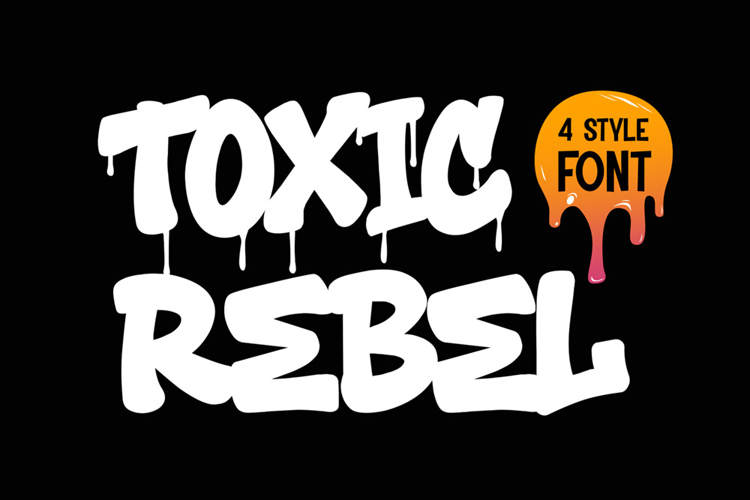
Toxic Rebel | Layered Drip Graffiti Font
Unleash chaos and creativity with Toxic Rebel – Layered Drip Graffiti Font. Designed with rebellious energy and dripping style, this typeface captures the raw essence of graffiti while adding a dark and spooky atmosphere. With its bold layered system, you can mix styles to create unique horror-inspired lettering that looks painted fresh on the wall.
Perfect for Halloween posters, haunted house flyers, music covers, gaming graphics, and bold headlines, Toxic Rebel delivers a striking look that instantly grabs attention. Its versatility allows designers to play with combinations of solid, outline, and drip versions, making every project feel alive and original.
Built in All Caps format for maximum impact, Toxic Rebel is crafted to dominate any design space. Each letter is sharp, dripping, and layered with urban horror vibes that scream energy and attitude.
Key Features
- All Caps style for bold, powerful lettering.
- Support Multilingual – reach audiences worldwide.
- Four Styles in One Package – solid, drip, outline, and drip outline.
- Layered Graffiti Design – stack and combine for endless variations.
- Perfect for Halloween Themes – horror posters, party invitations, and haunted branding.
- High Readability – bold characters ensure clarity even at large scale.
Why Designers Love It Designers love Toxic Rebel because it offers more than just a font—it’s a full creative toolkit. The layered system gives freedom to experiment with different effects, from neon glow outlines to dripping horror shadows. It’s the ideal typeface for creating graffiti-inspired designs with depth and intensity.
With its multilingual support, Toxic Rebel fits global campaigns, while the included formats guarantee compatibility with all major design platforms. Its rebellious graffiti style adds personality to every project, whether for digital artwork, posters, music events, or gaming visuals.